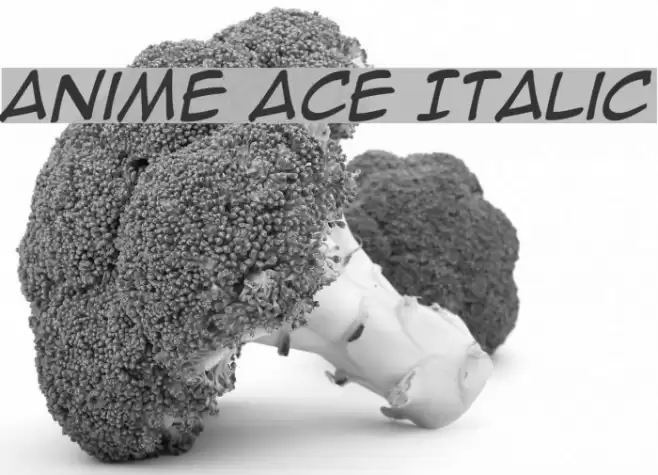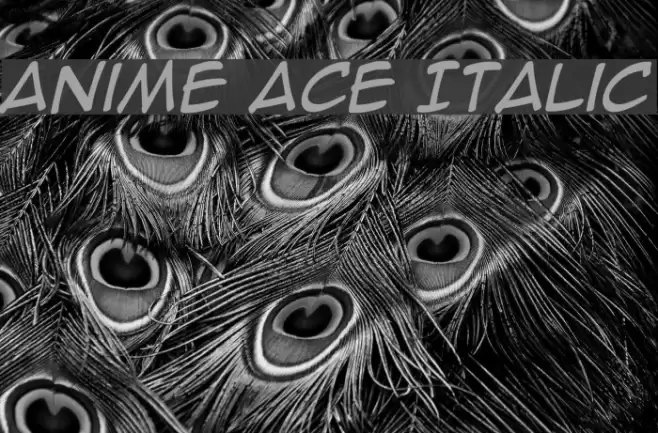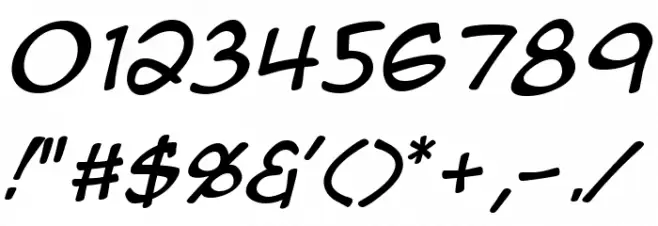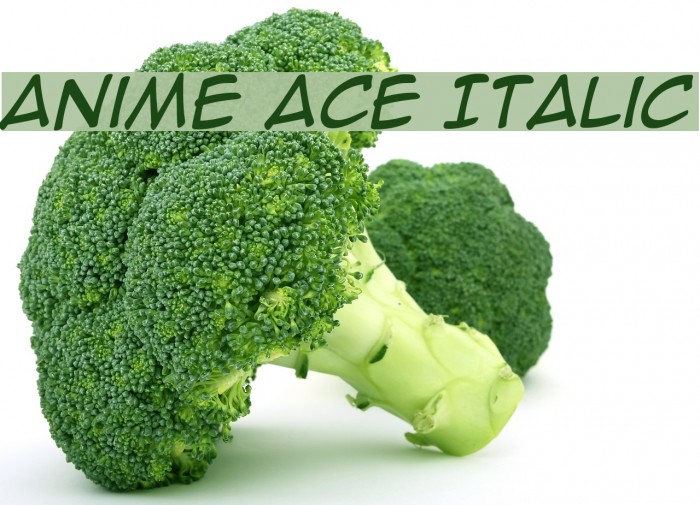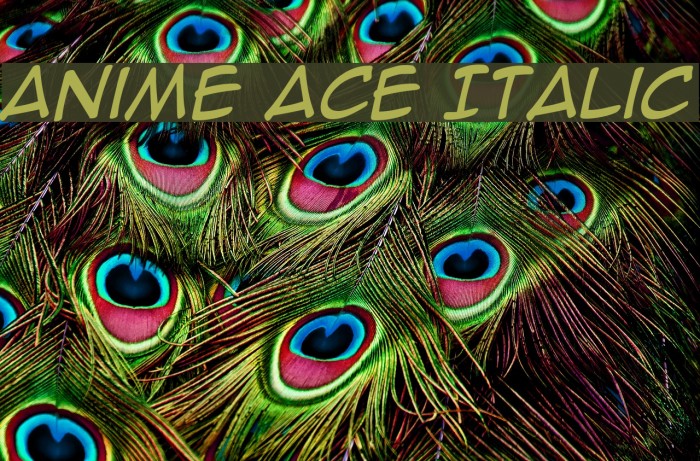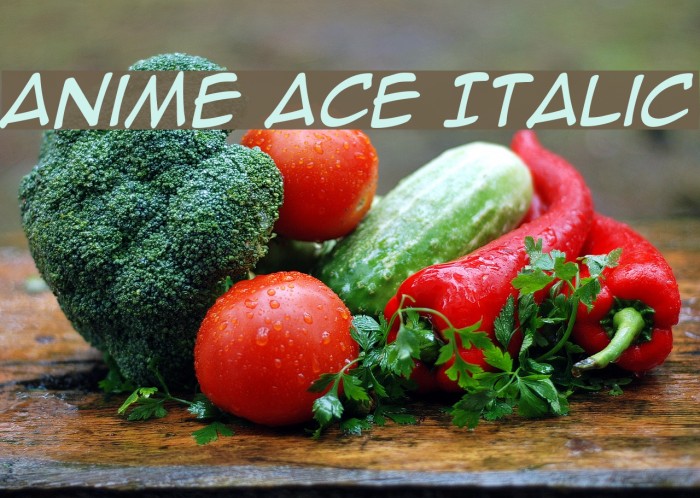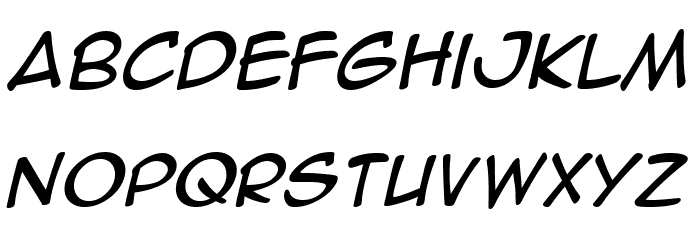
Anime Ace Italic Font
Anime Ace Italic Description
This font features a playful and dynamic style, characterized by its italicized and slightly slanted letterforms. The strokes are smooth and fluid, giving it a handwritten appearance that is both casual and energetic. The characters are well-spaced, ensuring readability while maintaining a lively aesthetic. The font includes both uppercase and lowercase letters, numerals, and a variety of special characters, making it versatile for different design needs. Its boldness adds to its visibility, making it suitable for eye-catching headlines or creative projects.
A playful, italicized font with a handwritten style and bold strokes from Uncategorized fonts.
- Proposed Projects: Comic books, children's books, playful branding, casual invitations, and creative posters.
- Overall Style: Casual
- Use Case: Headlines, Logos, Creative projects